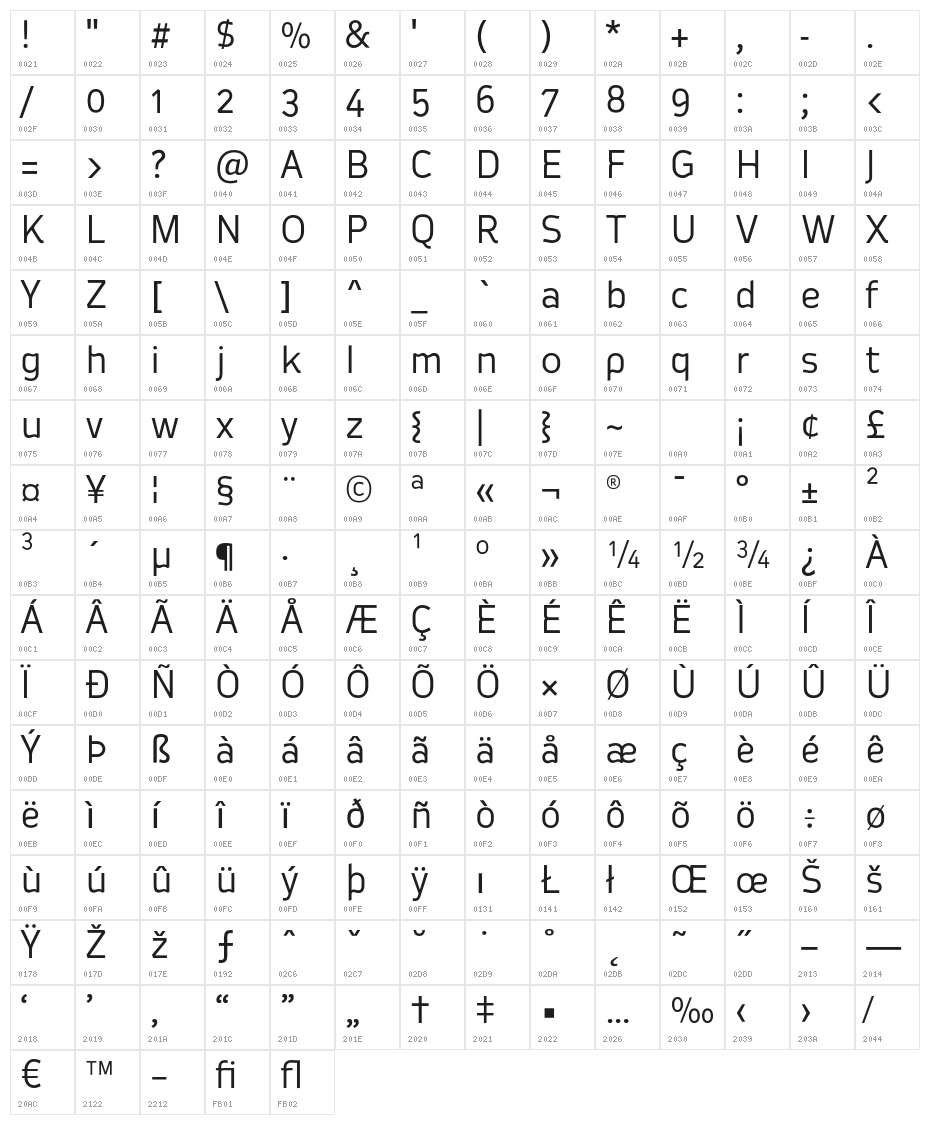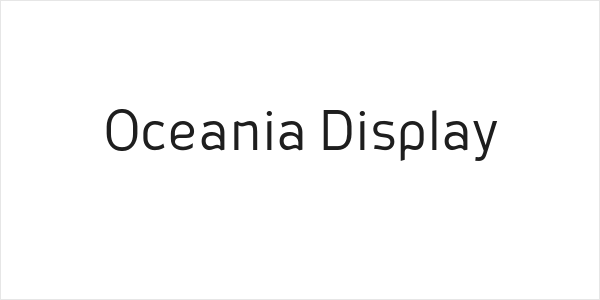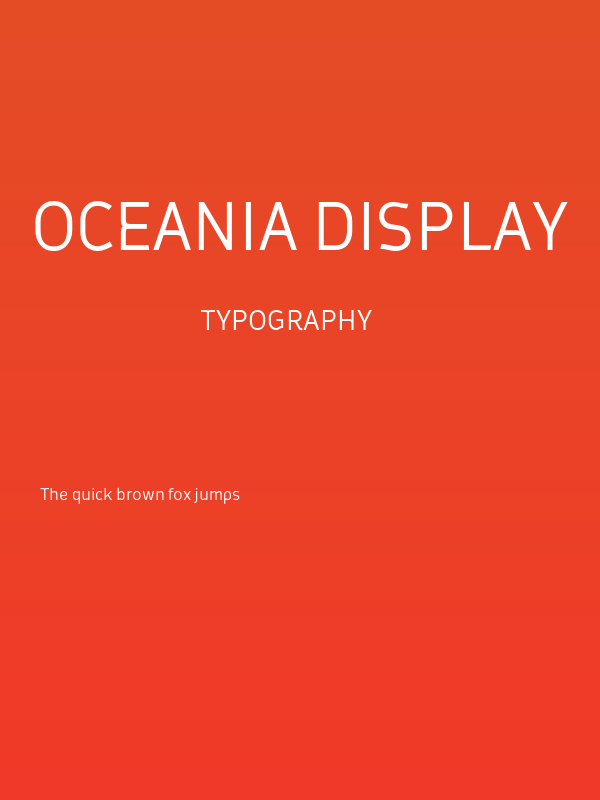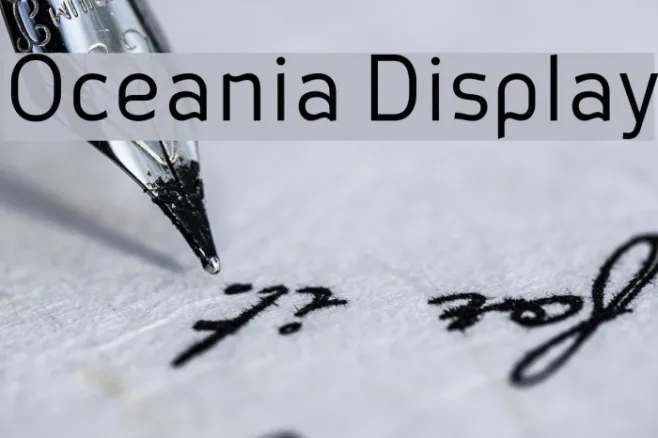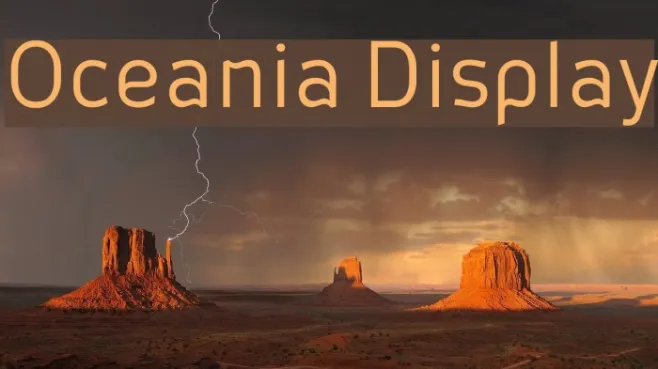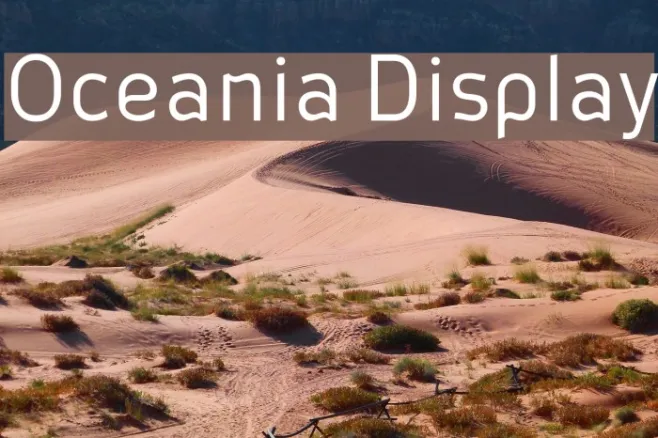
Oceania Display Font
Oceania Display Description
This font features a clean and modern sans-serif style with a geometric structure. The characters are well-balanced, offering a uniform appearance that is both professional and approachable. The uppercase letters are bold and assertive, while the lowercase letters maintain a friendly and accessible feel. The numerals are clear and easy to read, making them suitable for a variety of applications. The special characters are distinct and well-integrated into the overall design, ensuring consistency across different uses. The font's simplicity and clarity make it versatile for both digital and print media.